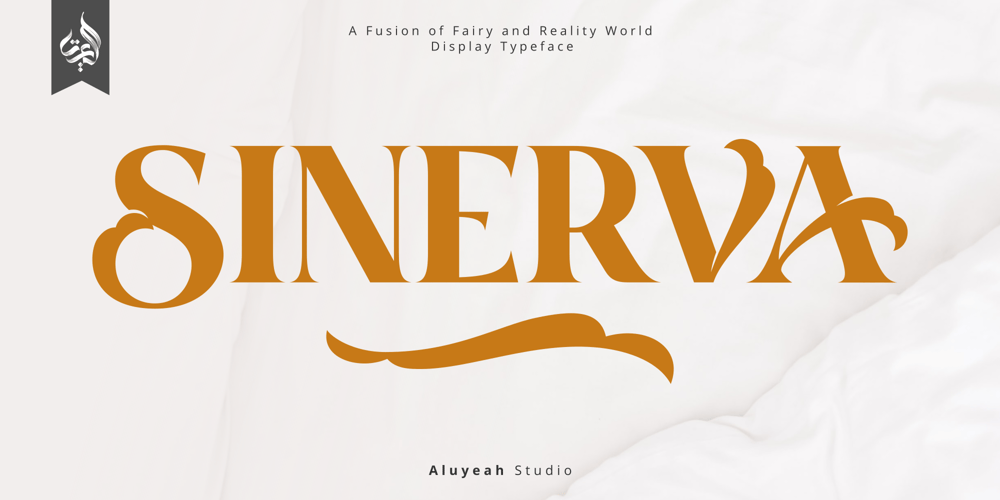
Al Sinerva Font Family was designed by Linggar Sundoro and published by Aluyeah Studio. Al Sinerva contains 1 styles and family package options. This font is the result of my play with letters. Inspired by Indonesia’s great cultural heritage, Batik. I wanted to create a font that has an alternative that highlights a small part of Indonesian batik culture by taking a shape like a bird’s feather which is often applied to Batik. A simple, yet distinctive, elegant font that can be applied to many areas of design.Sinerva is a quilly display typeface. Coming with 130+ stunning and super easy to use alternates. Very suitable for magazine, headline, website, ads, product package and all type of design project you have. Features:OpenType supportMultilingual support (15 languages)PUA EncodedSuper Easy to Use alternates – It’s OpenType support but you can easily call alternates character using special combination like A.2 R.3 h.5 etc. so you don’t need special software. To get results like the preview just type S.4INERV.3A.8Thanks for checking out my font. I really hope you enjoy using it!